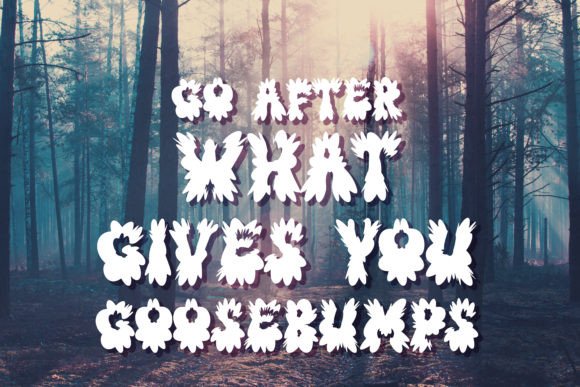
The Goosebump Font: A Spooky Addition to Your Design Library
I’ll never forget the time I was working on a Halloween-themed project for a client, and I just couldn’t find the right font to capture the spooky atmosphere. The client wanted something that would send shivers down their audience’s spines, but everything I found was either too generic or too over-the-top. That’s when I stumbled upon the Goosebump font, and it instantly became the perfect fit. In this article, I’ll share my experience with this unique decorative font, its features, and how to make the most of it in your designs.
An Honest Review of Goosebump Font
What I Love About Goosebump Font
- ✨ Unique and eye-catching design that’s perfect for Halloween, horror-themed projects, or any design that needs a spooky touch
- ✅ Highly versatile and can be used for a wide range of projects, from titles and headings to body text and captions
- 💡 Great for crafting and DIY projects, such as mug and shirt designs, stickers, and more
- 🎃 Can add a touch of eeriness and whimsy to your designs, making them stand out from the crowd
While the Goosebump font is an amazing addition to any design library, there are a few things to keep in mind:
- ⚠️ The font’s unique design can be overwhelming or difficult to read in large blocks of text, so it’s best used for titles, headings, or short paragraphs
- 🤔 Some characters may not be suitable for professional or formal designs, as the font has a distinctly playful and spooky vibe
The Backstory of Goosebump Font
The Goosebump font was designed by a talented typographer who wanted to create a font that would evoke the feeling of being scared on a dark and stormy night. Inspired by classic horror movies and haunted houses, the designer crafted a font that would send shivers down your spine. With its unique and eye-catching design, the Goosebump font has become a favorite among designers and crafters alike.
Q: What type of projects is the Goosebump font best suited for?
A: The Goosebump font is perfect for Halloween-themed projects, horror-themed designs, titles and headings, and crafty DIY projects.
Q: Is the Goosebump font easy to read?
A: The Goosebump font is designed to be eye-catching, but it may not be the most readable font for large blocks of text. It’s best used for titles, headings, or short paragraphs.